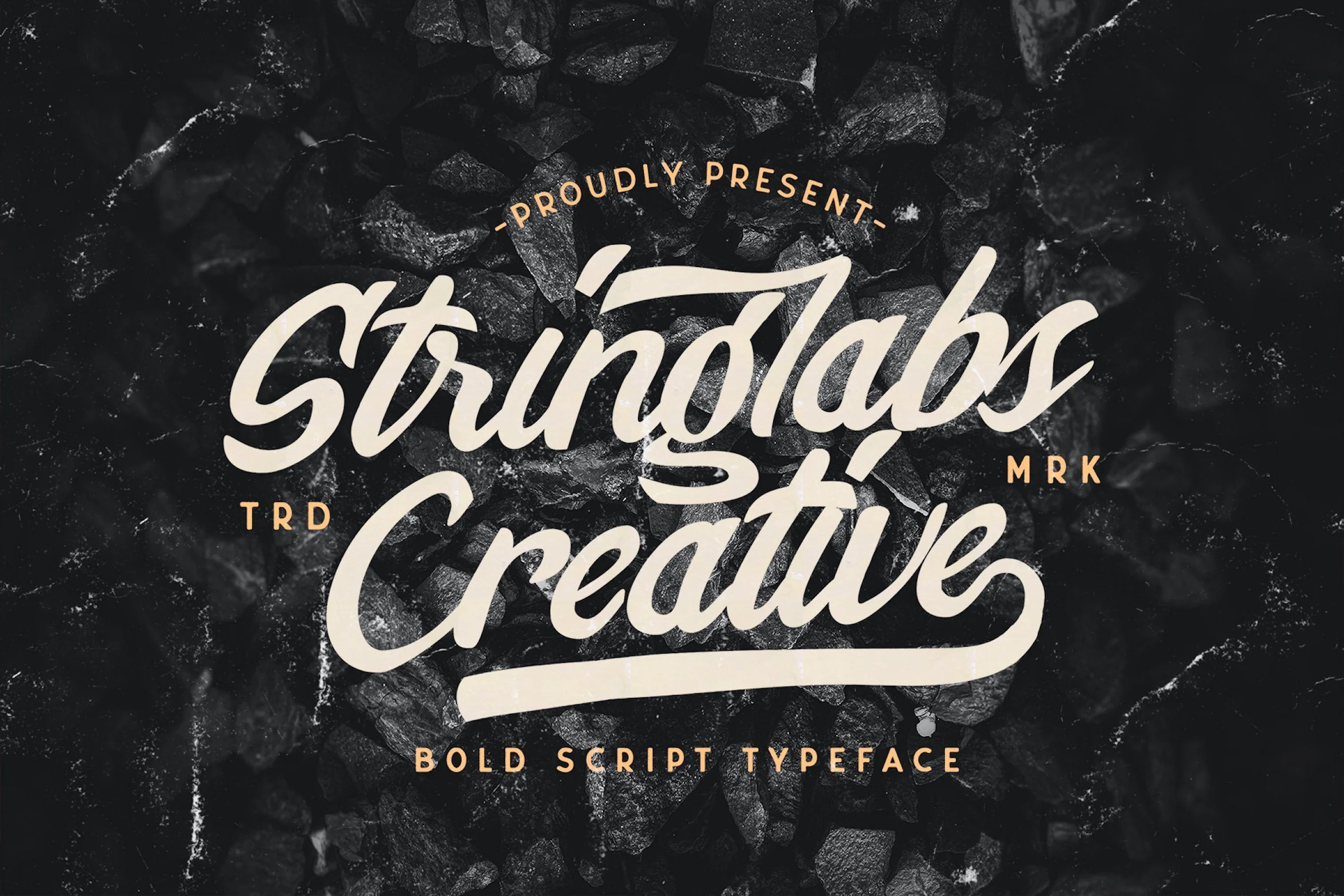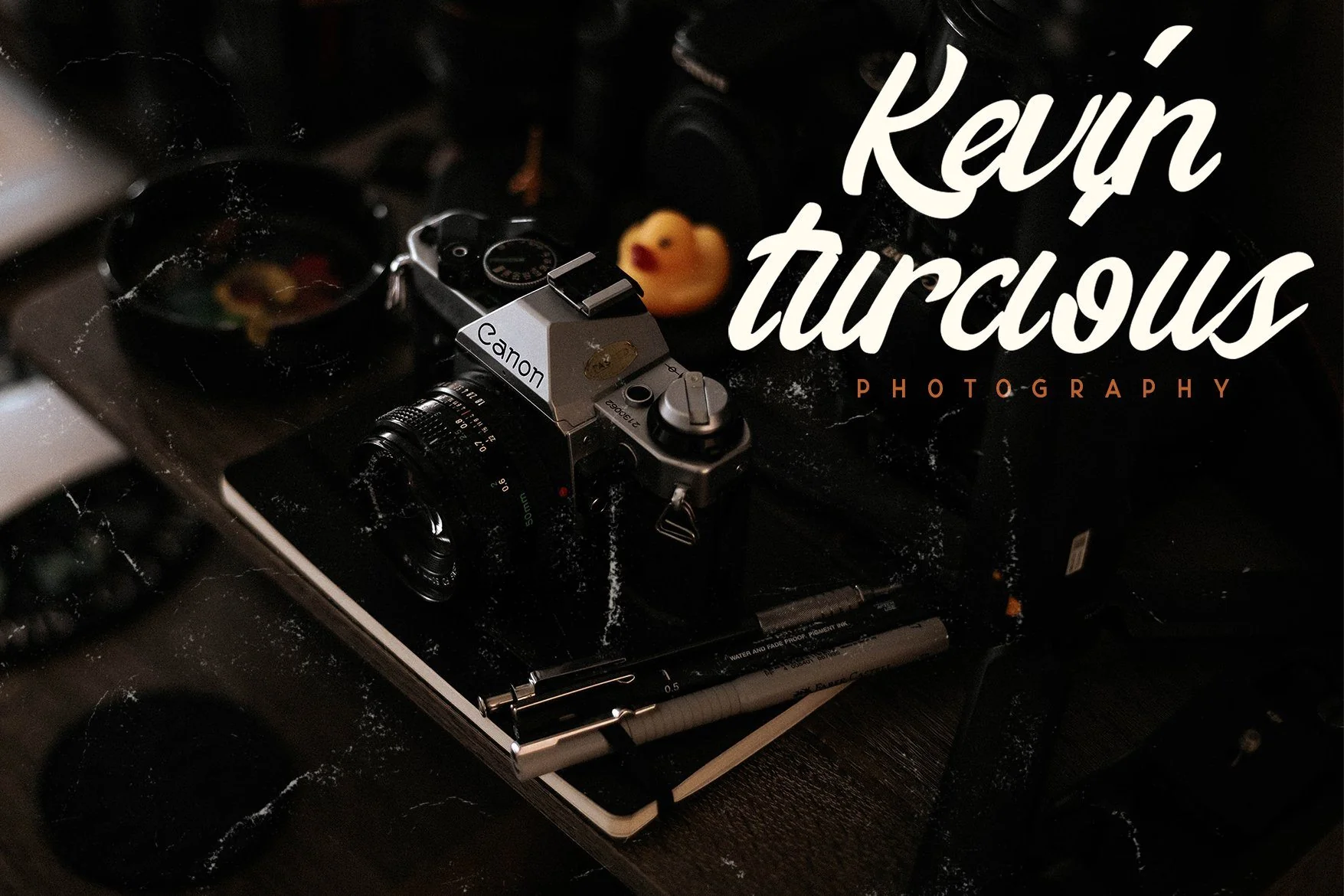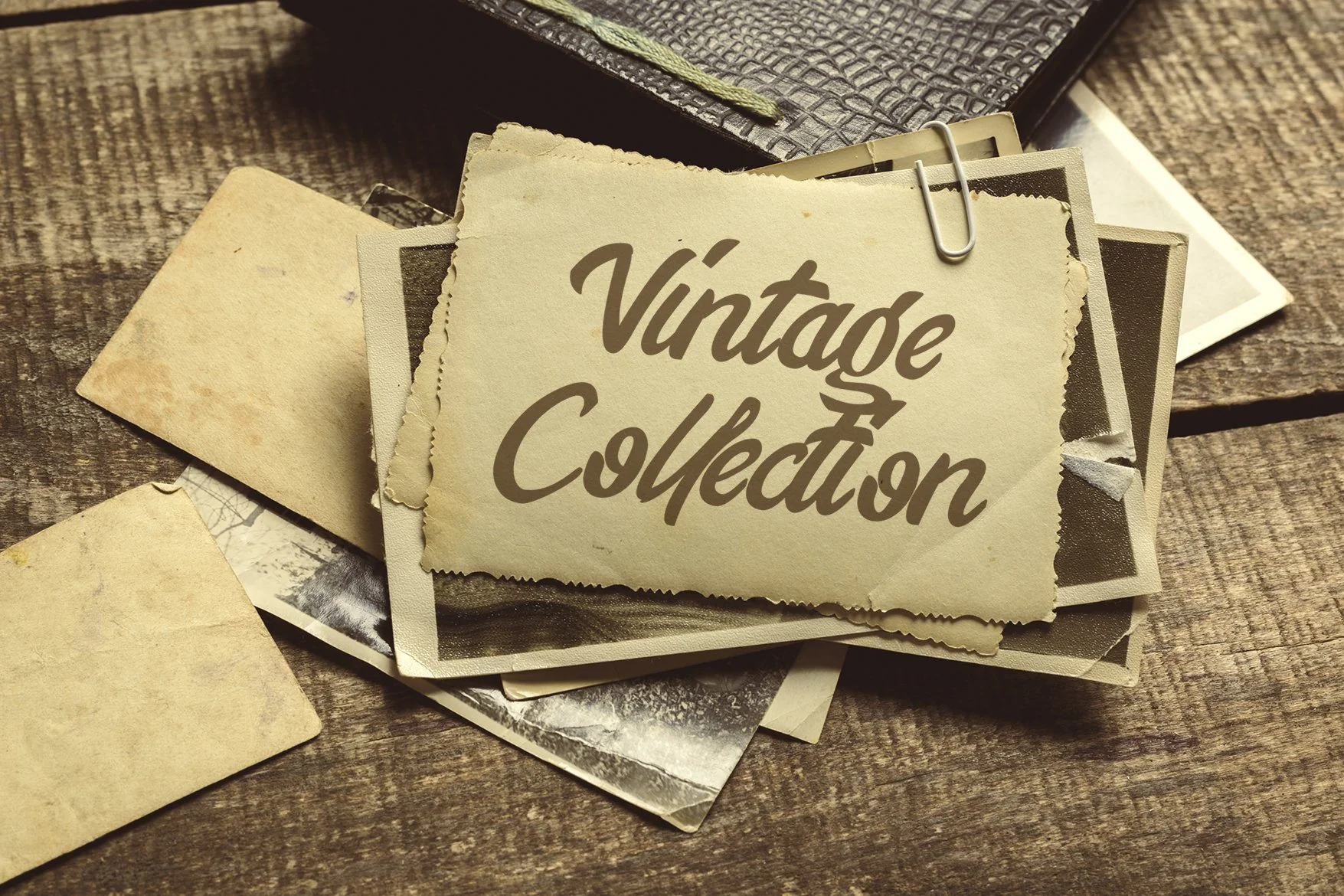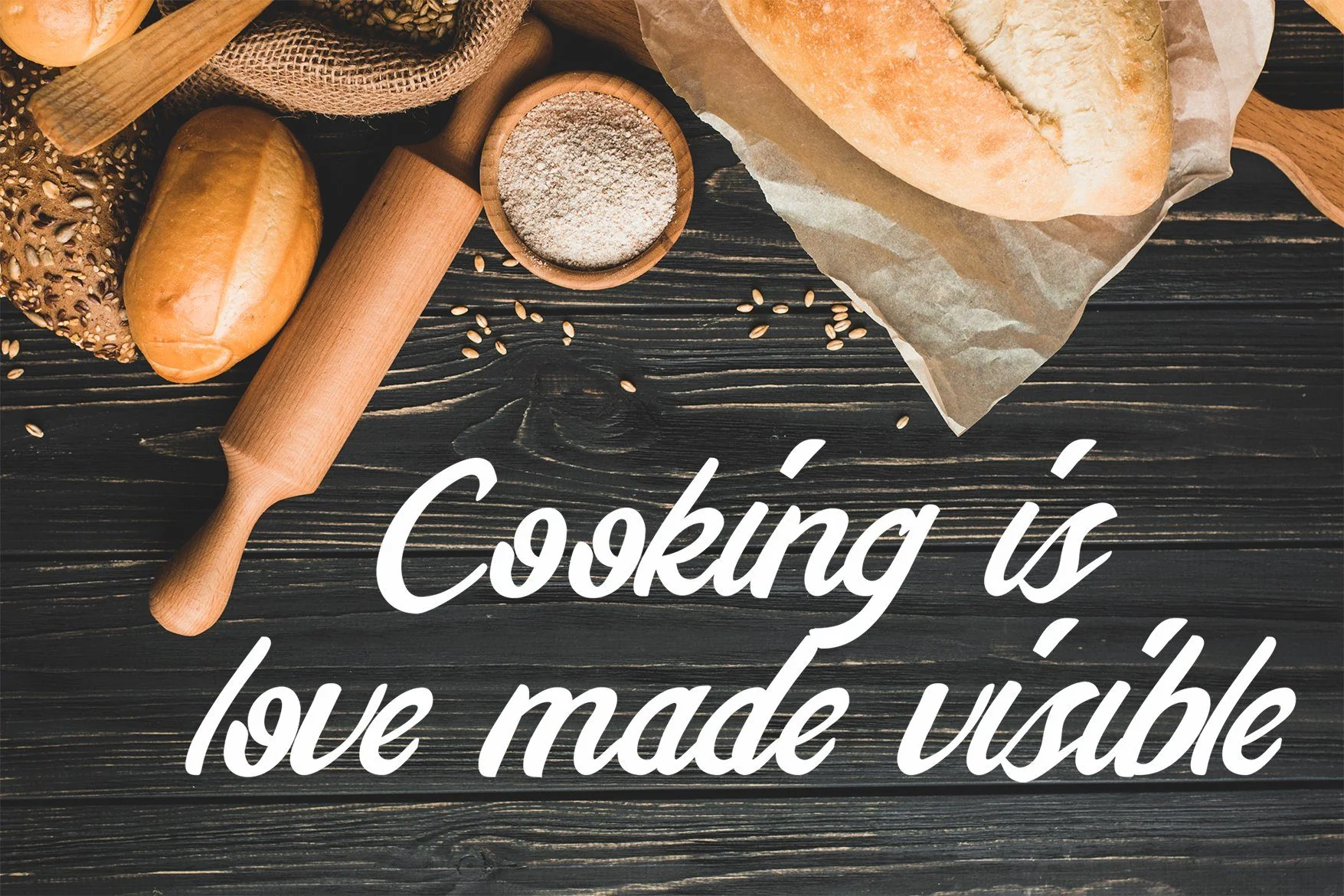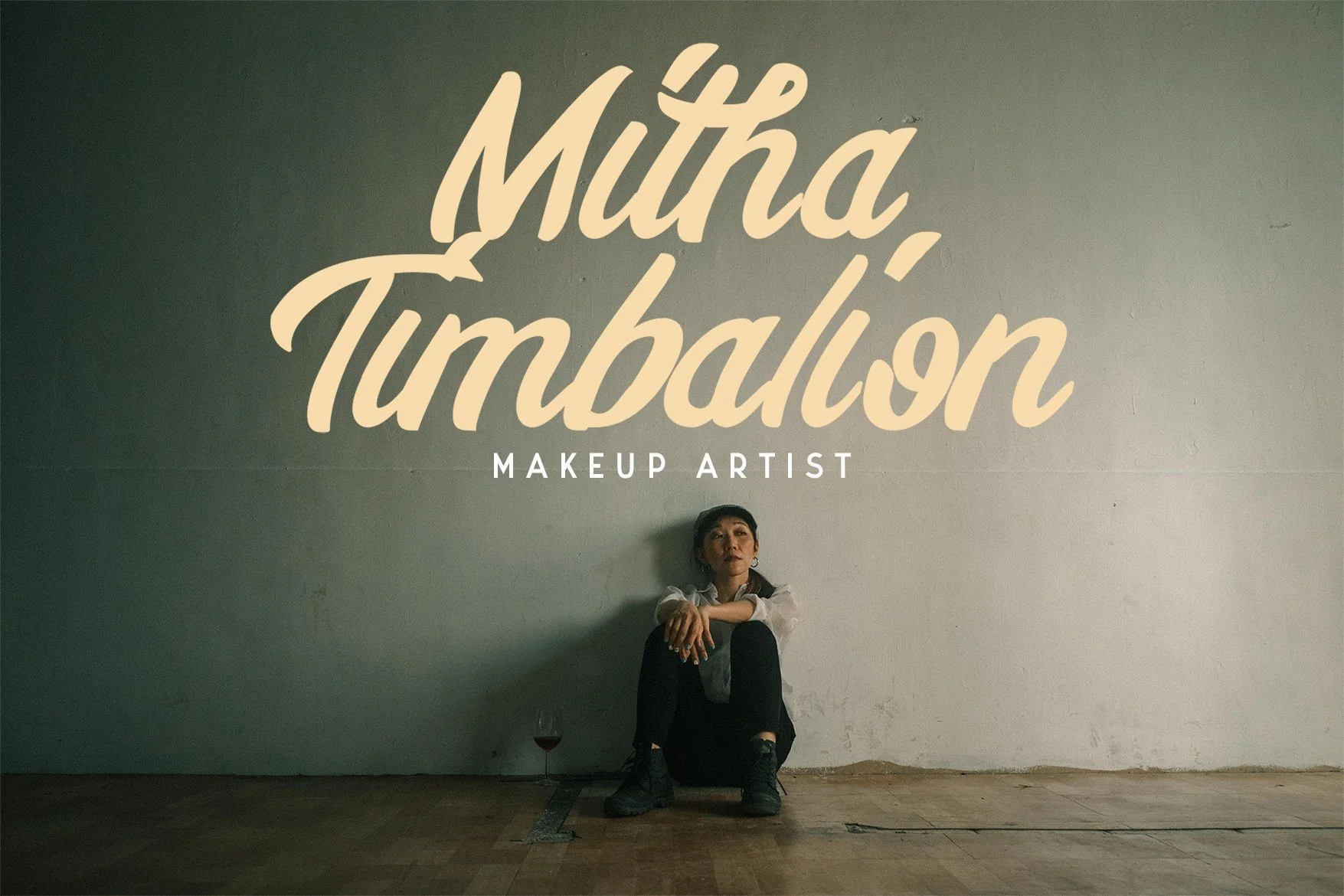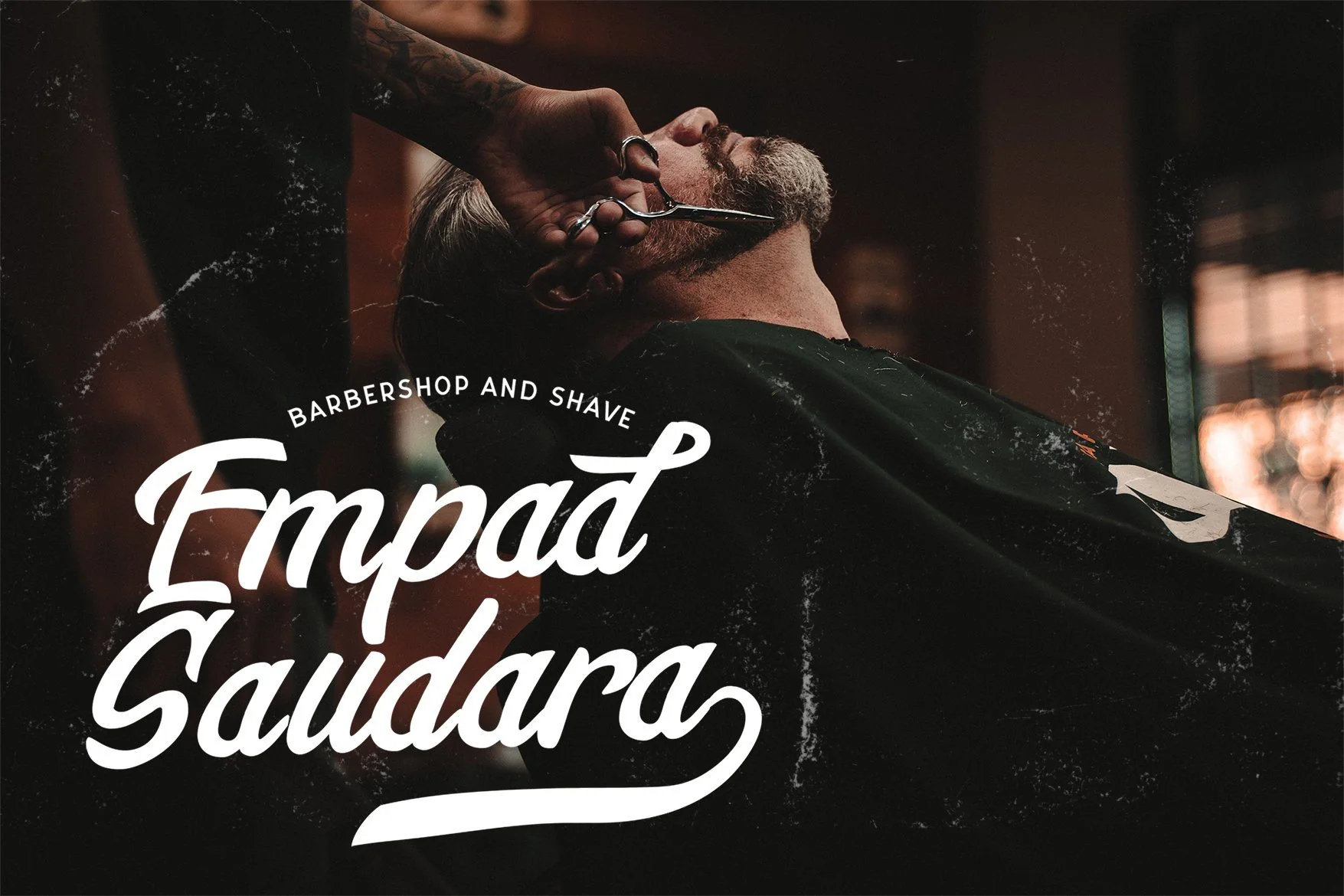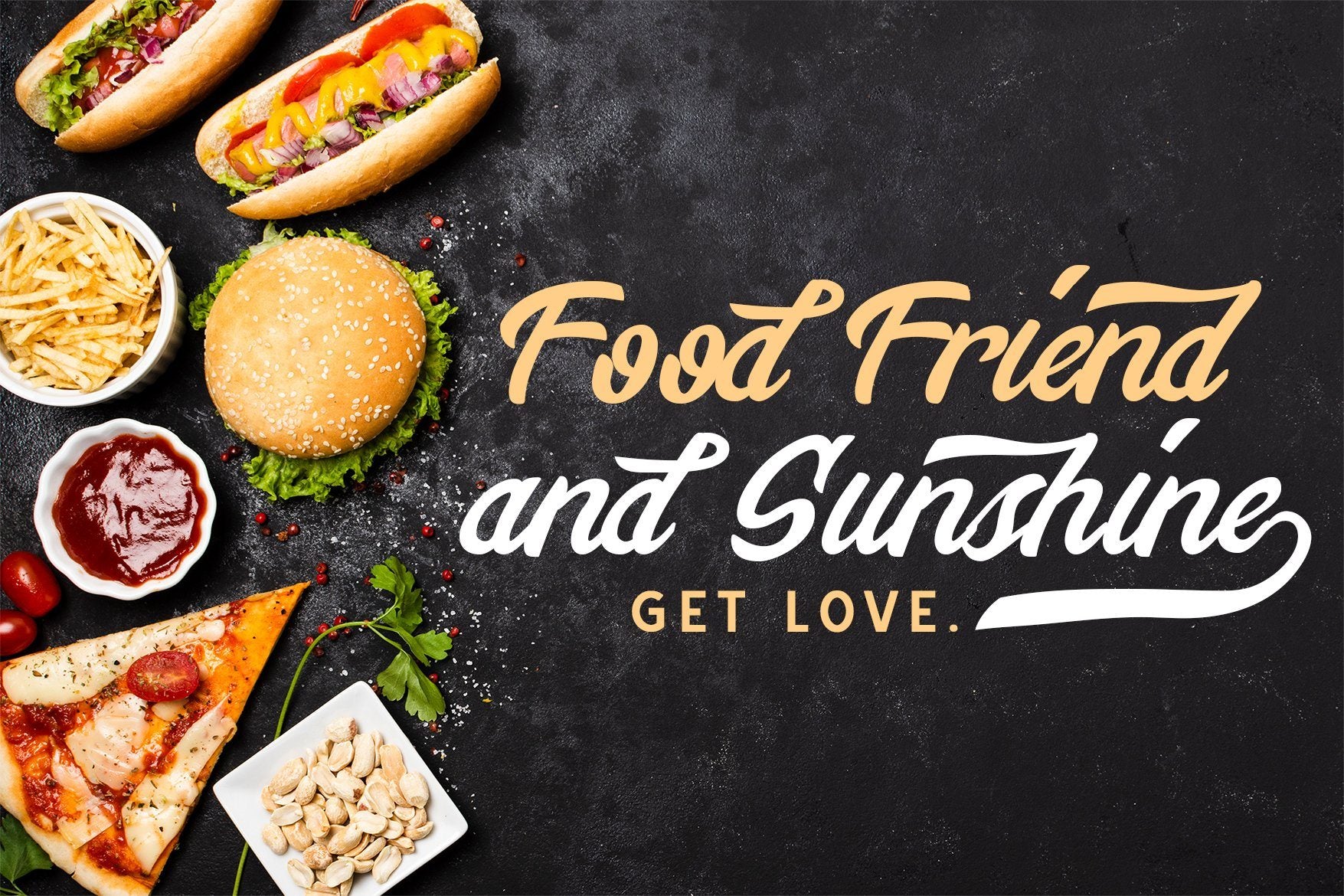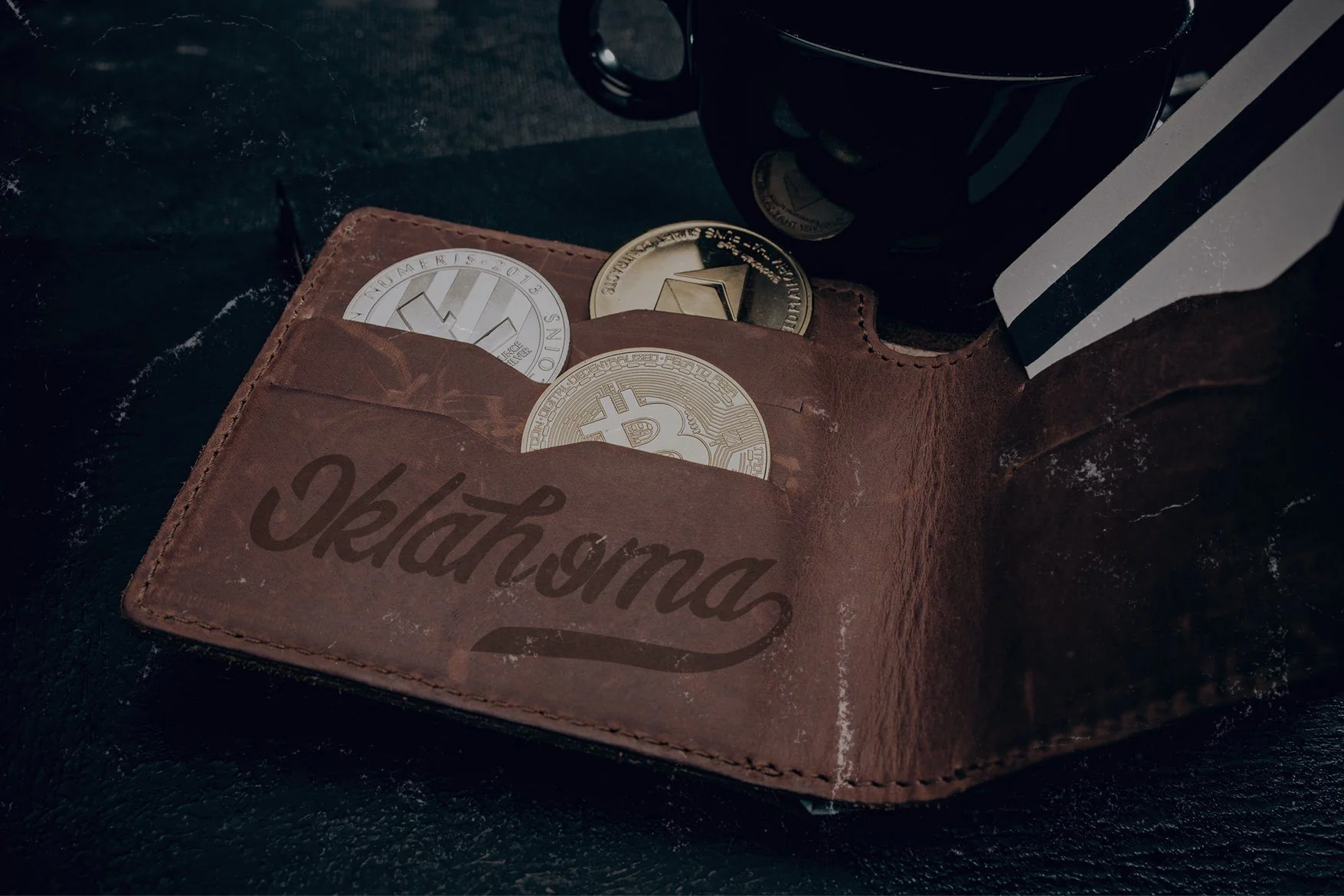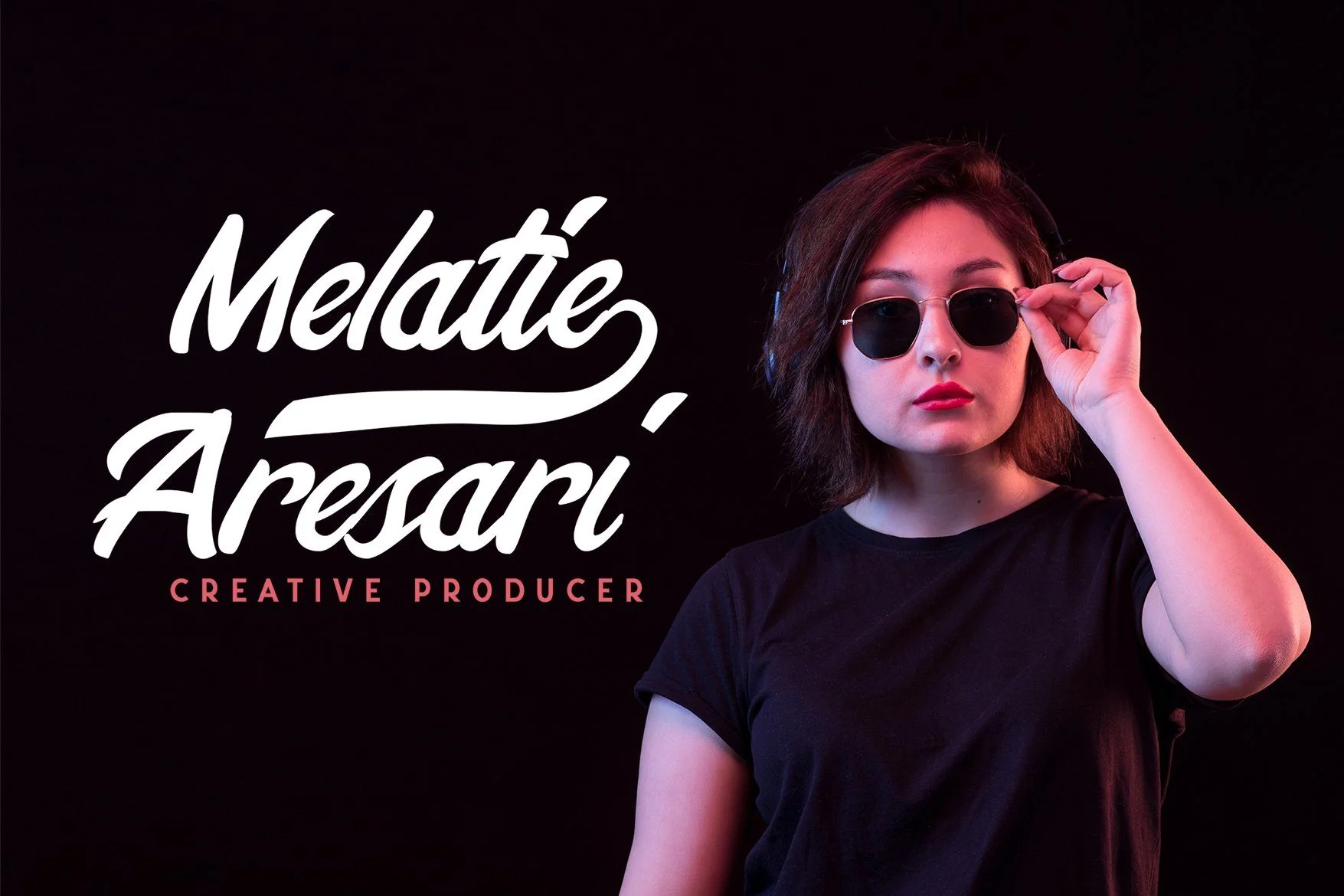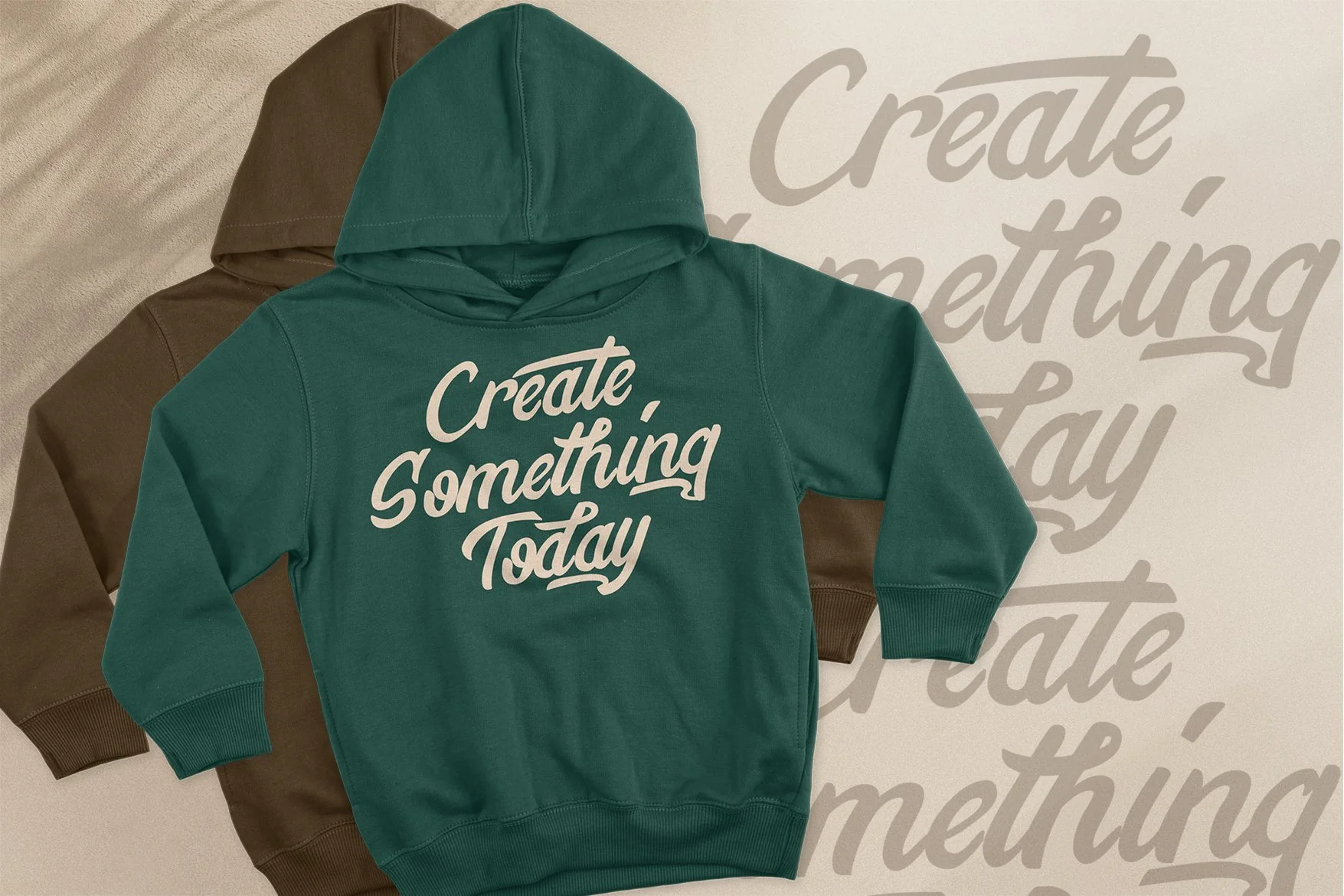
Stringlabs Creative - Bold Script Font
Introducing Stringlabs Creative - Bold Script Font
Stringlabs Creative is a bold script with calligraphy style. This font made with unique design taste and combine with classy style. The Stringlabs Creative is perfect for bold script font lovers, besides this font is also perfect if used for brands such as: barbershop, motorcycle club, clothing, logo brand, coffee shop, shoe brands, hipster brand, vapor and many more.
This Font Template contains Classy, Creative, Cool and has a Unique Concept.
- Stylistic Alternate 1
- Stylistic Alternate 2
- Stylistic Alternate 3
Introducing Stringlabs Creative - Bold Script Font
Stringlabs Creative is a bold script with calligraphy style. This font made with unique design taste and combine with classy style. The Stringlabs Creative is perfect for bold script font lovers, besides this font is also perfect if used for brands such as: barbershop, motorcycle club, clothing, logo brand, coffee shop, shoe brands, hipster brand, vapor and many more.
This Font Template contains Classy, Creative, Cool and has a Unique Concept.
- Stylistic Alternate 1
- Stylistic Alternate 2
- Stylistic Alternate 3